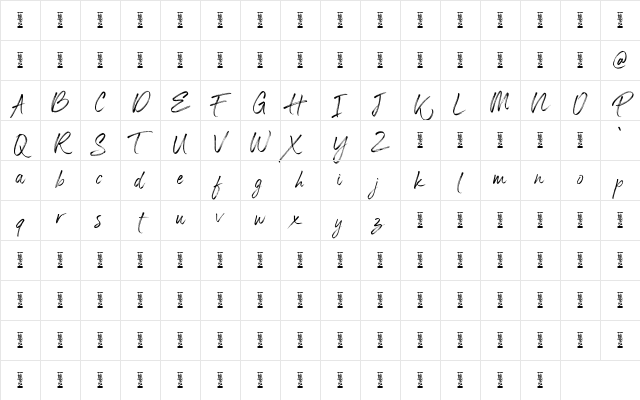
Complete Panterick Regular glyph index. Displaying only characters natively supported by Panterick Regular font.
Panterick is a composed and adaptable typeface that performs quietly and consistently across a wide range of design contexts.